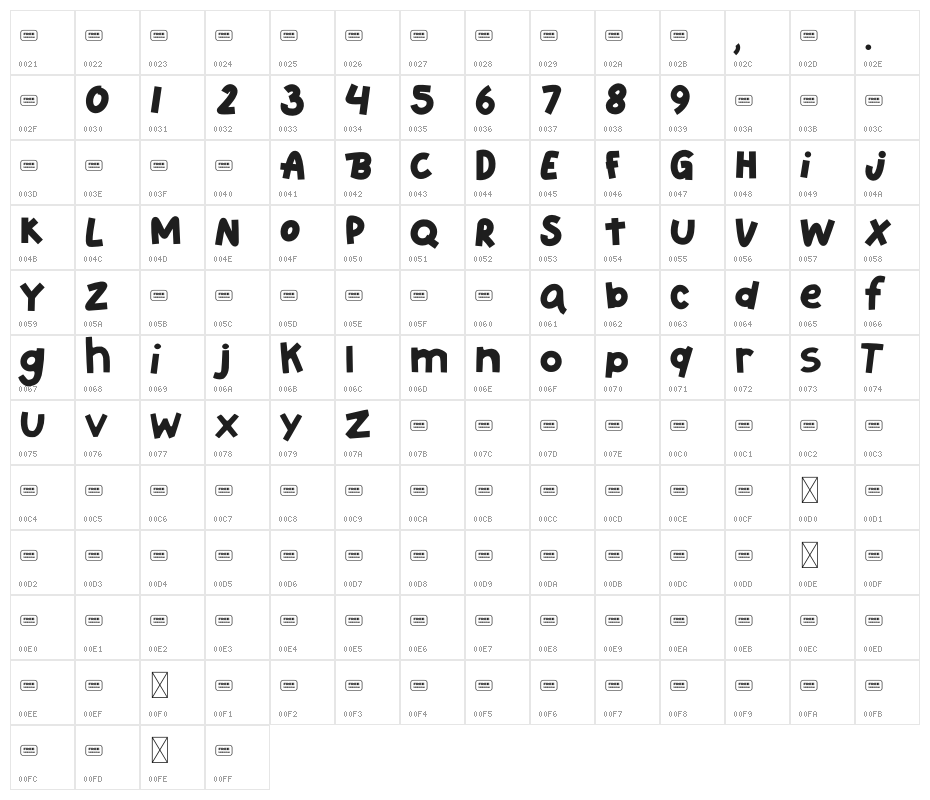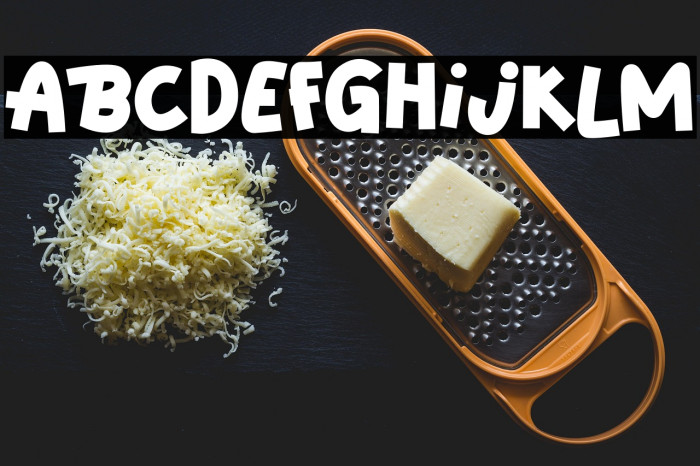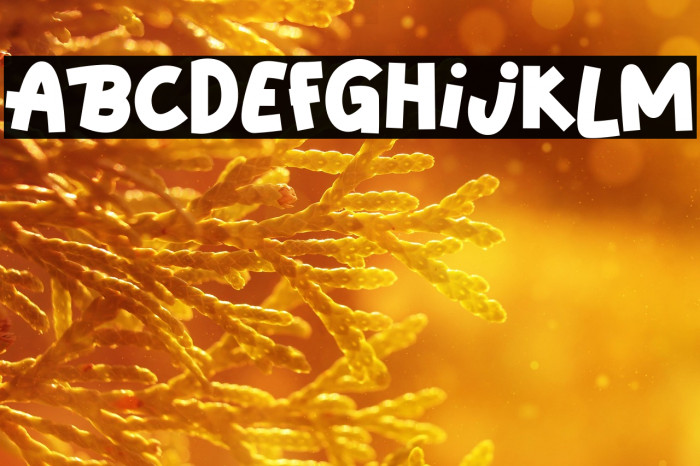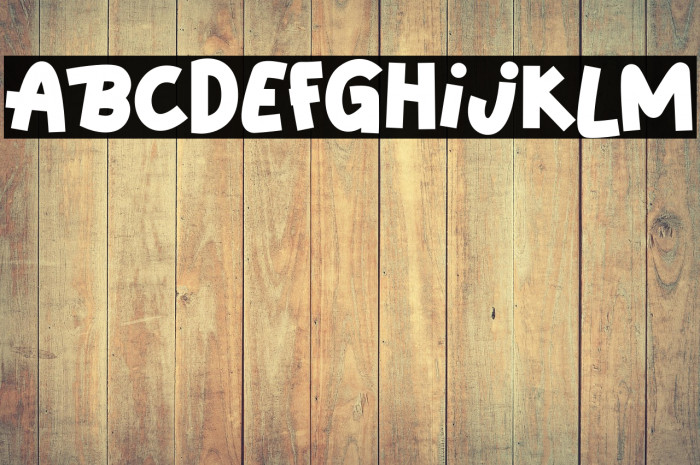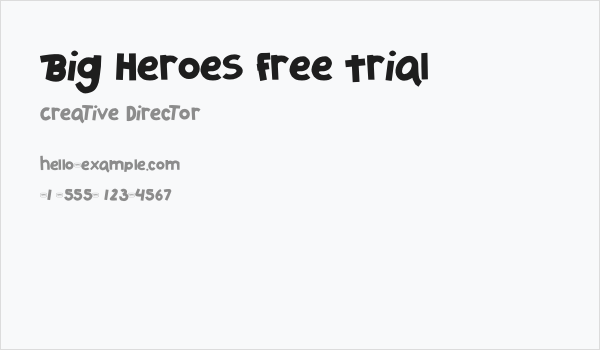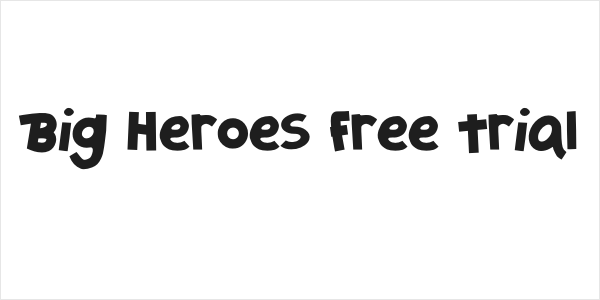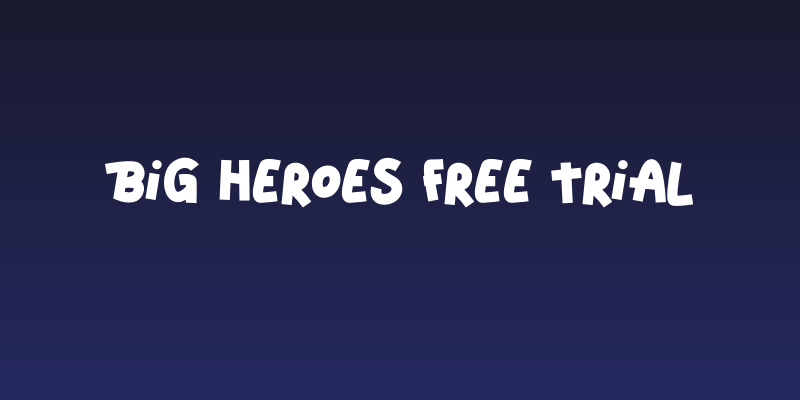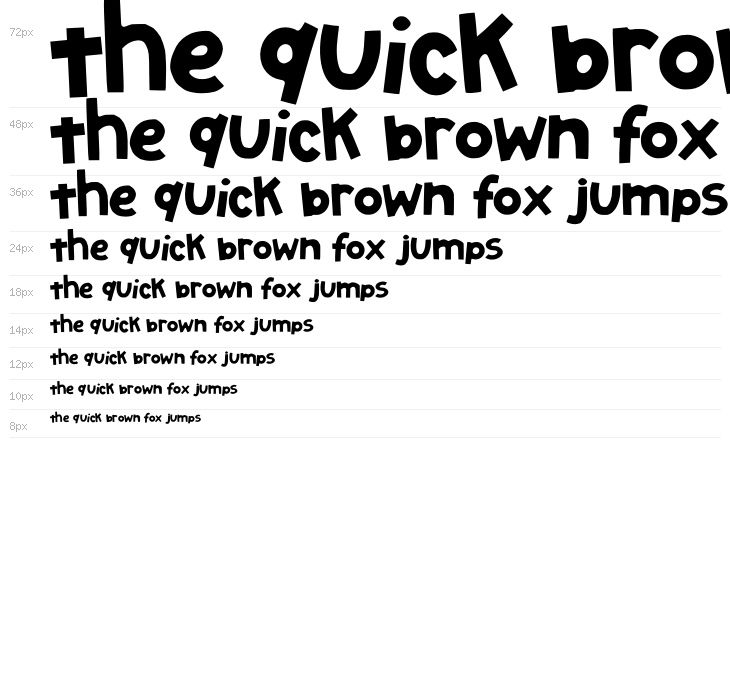
Big Heroes Free Trial Font
Big Heroes Free Trial Description
This font features a playful and bold design, characterized by its thick, rounded strokes and slightly irregular shapes. The letters have a whimsical and cartoonish appearance, making them ideal for projects that require a fun and informal touch. The uppercase and lowercase letters maintain a consistent style, with a noticeable bounce and uneven baseline that adds to the font's charm. The numbers and special characters follow the same playful aesthetic, ensuring a cohesive look across all text elements.
| Proposed Projects | Ideal for children's books, comic strips, playful branding, and party invitations. |